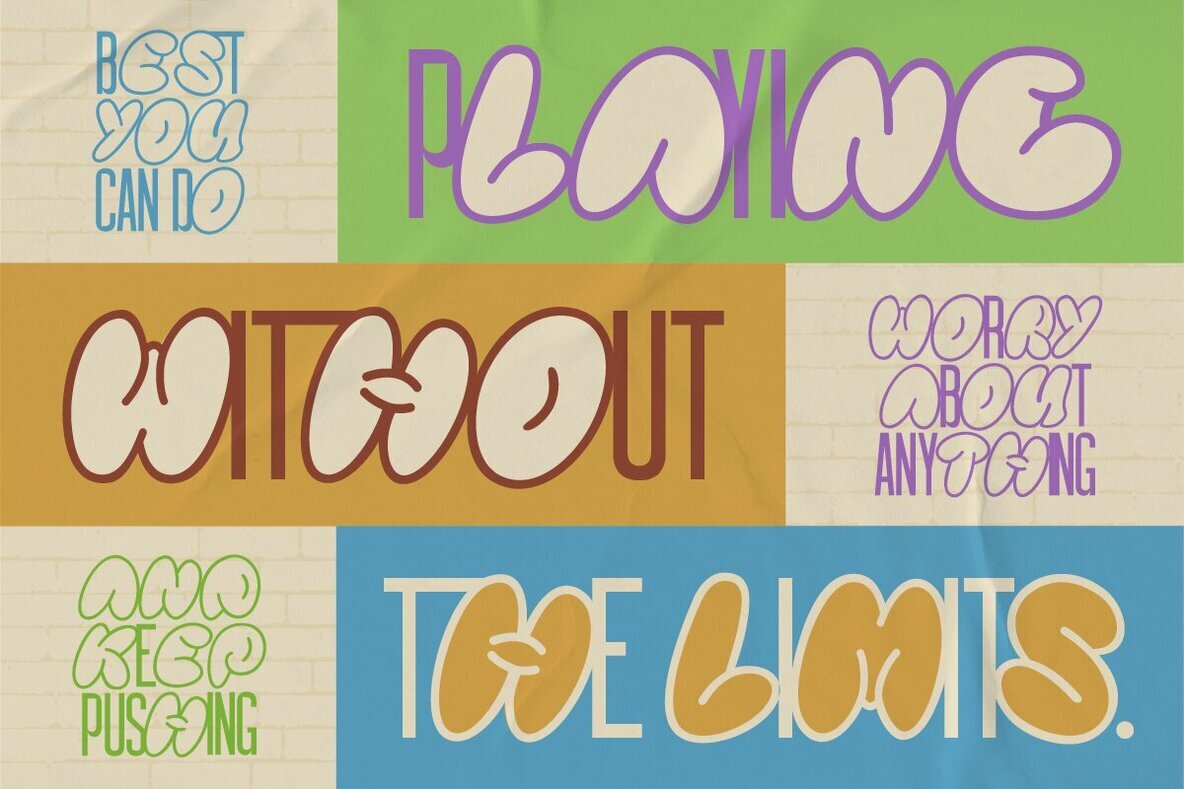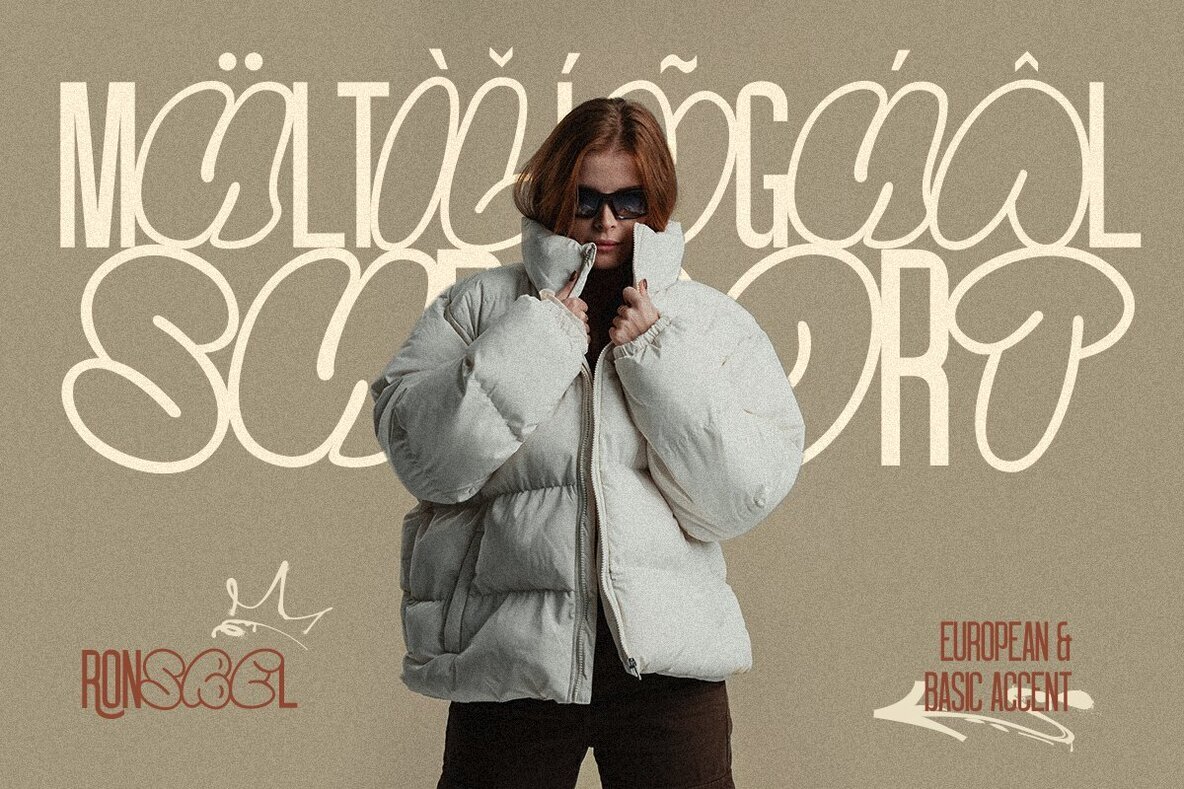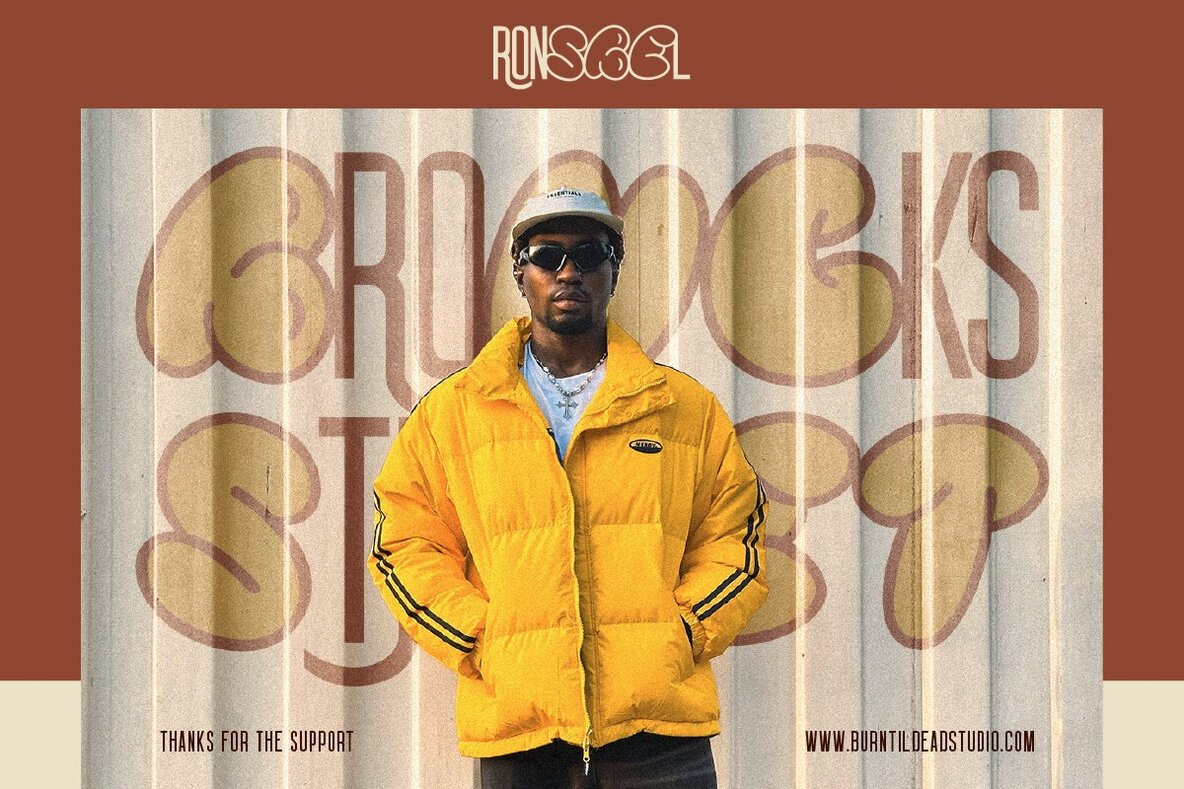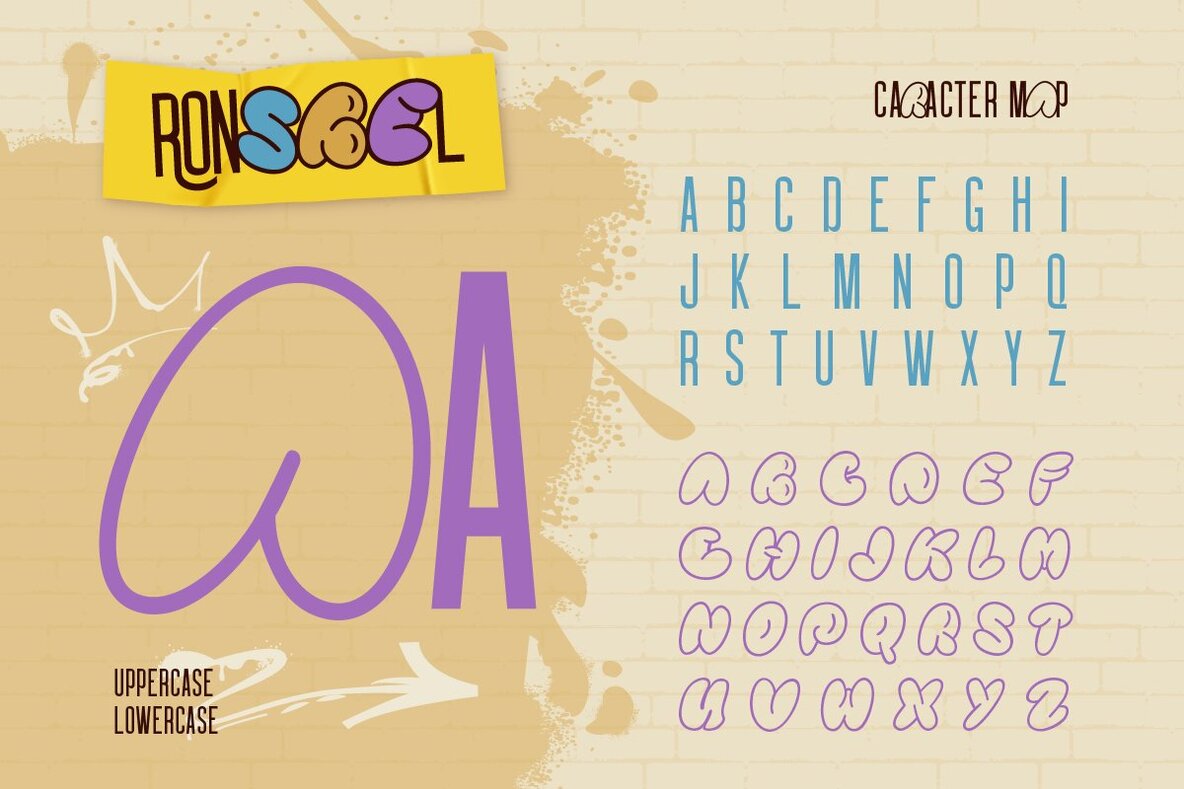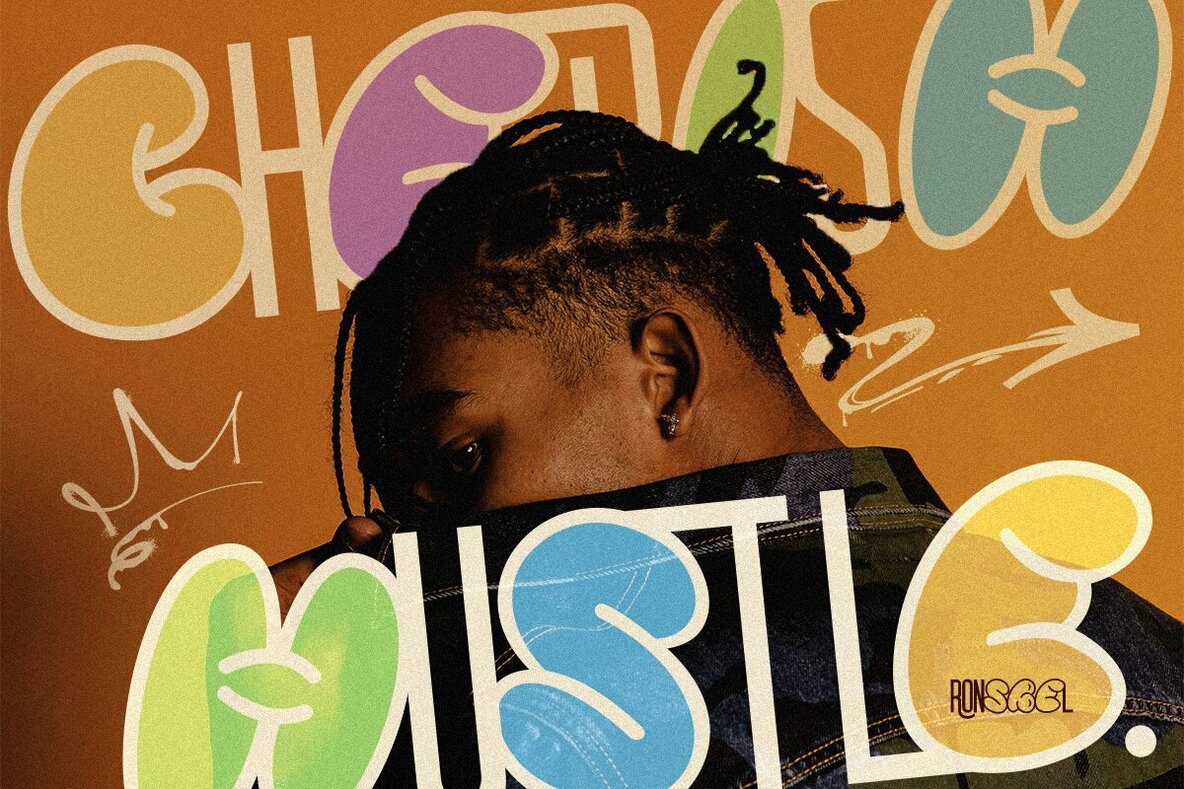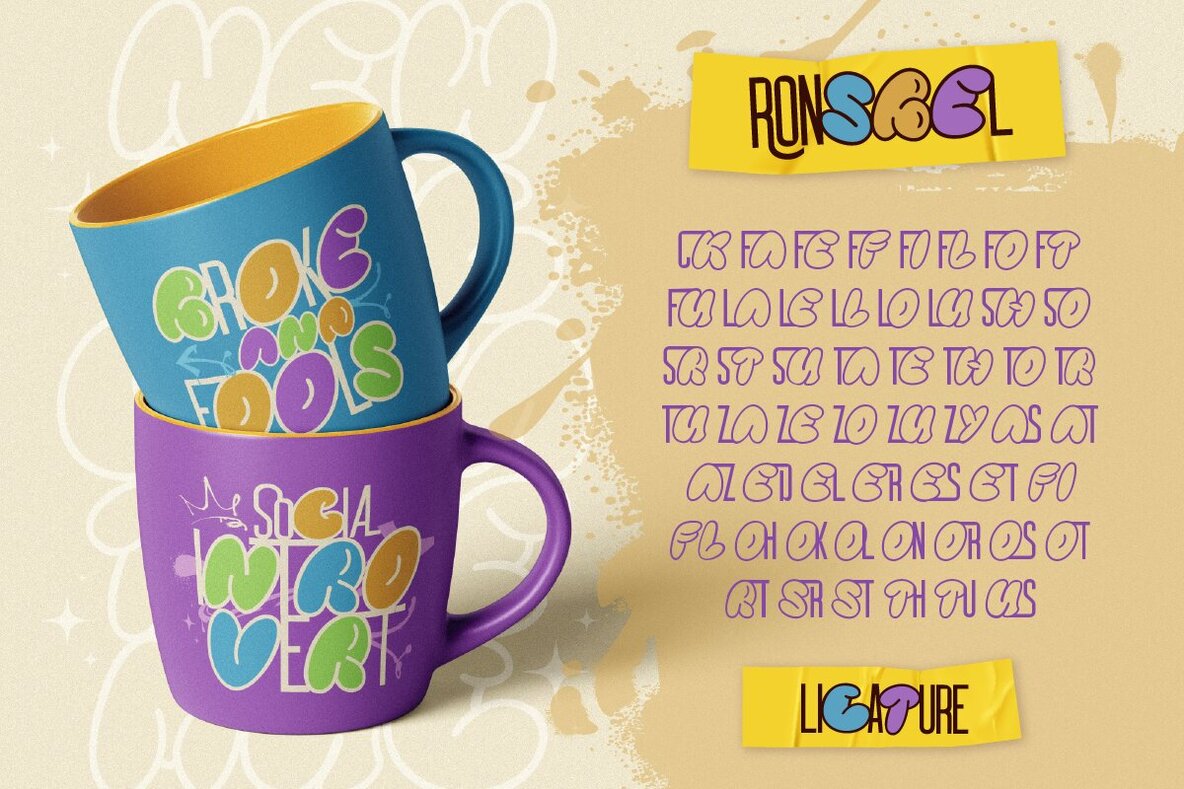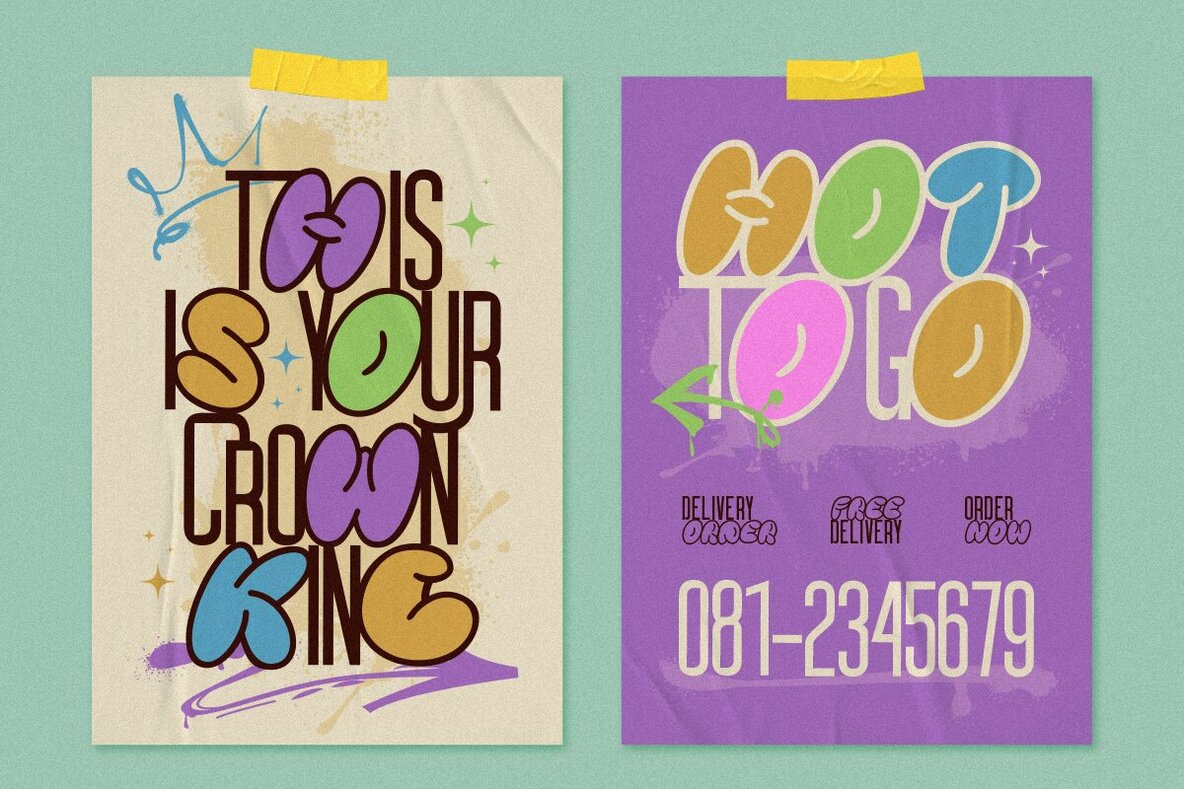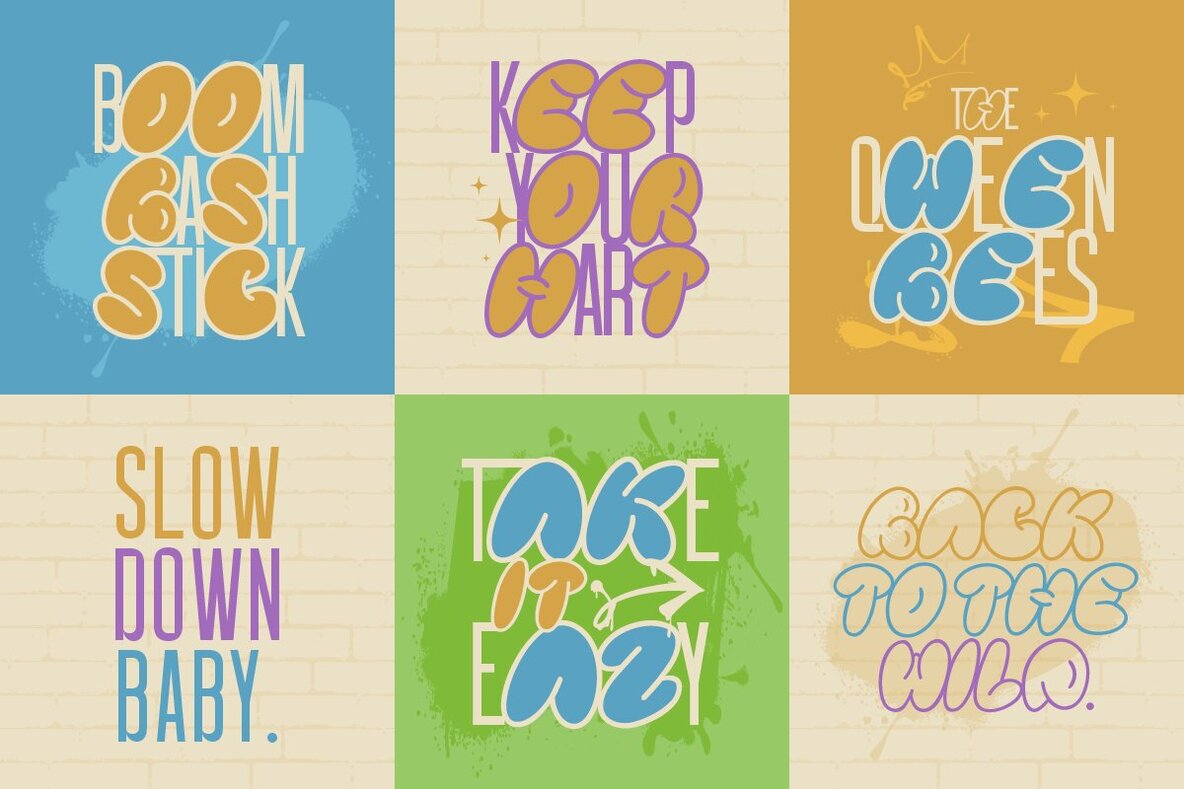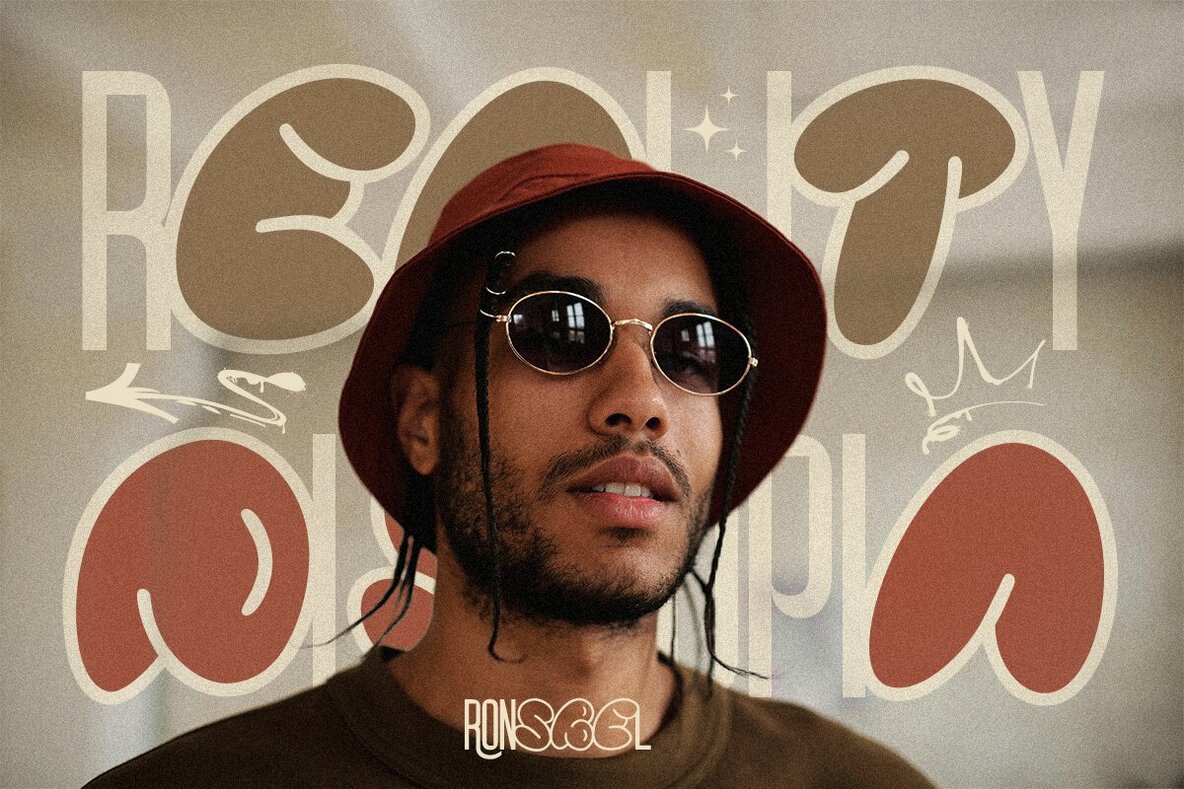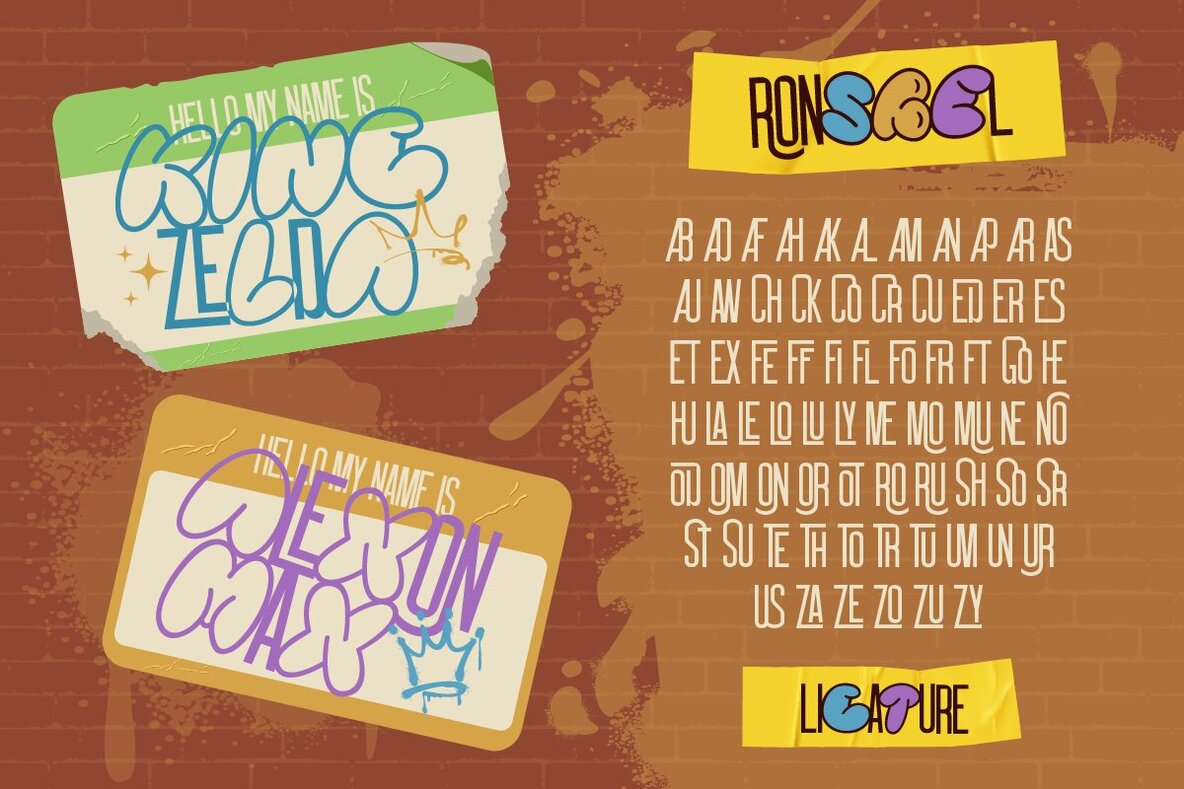
Ronsbel Font
Ronsbel Regular
Ronsbel is a unique hybrid typeface that effortlessly blends the playful essence of bubble graffiti with the sleek sophistication of monoline sans serif. The rounded forms imbue a sense of fun and whimsy, while clean lines add a contemporary touch. This typeface perfectly captures the spirit of urban creativity, making it ideal for projects that seek to merge whimsy with refinement.
Whether you're working on street art, branding, or any creative endeavor, Ronsbel stands out with its versatile features. It includes a complete A-Z set, numbers, punctuation, ligatures, and multilingual support, making it a comprehensive tool for designers.